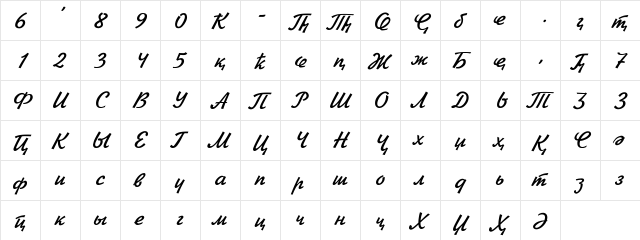
Abzia Regular Font Preview
Abzia Regular
Abzia Regular Font Details
Design Context for Abzia Typeface
Abzia is a composed and adaptable typeface that performs quietly and consistently across a wide range of design contexts.